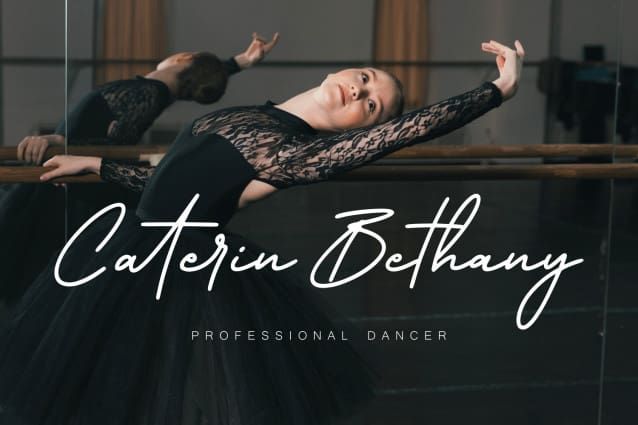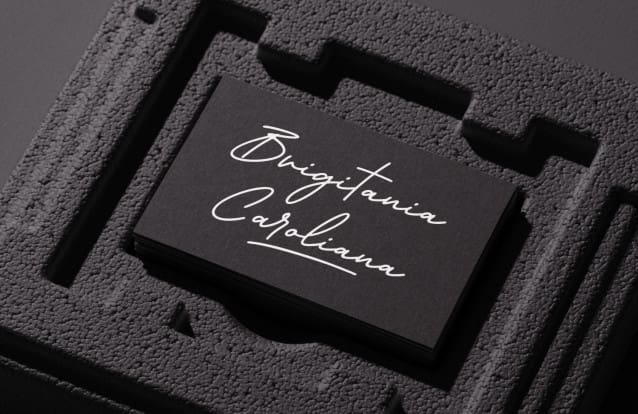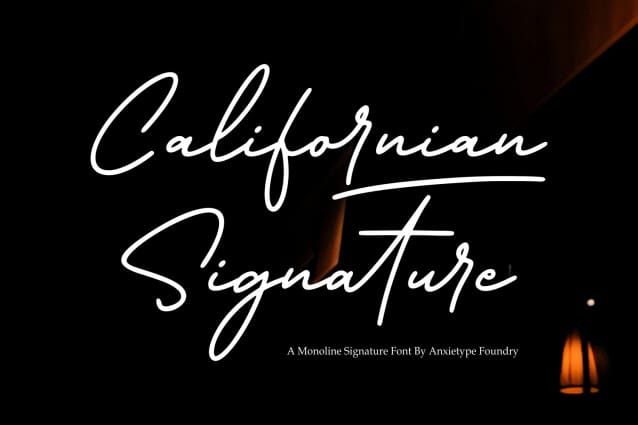
Californian Signature Font
Californian Signature Font, a pristine monoline signature font that personifies luxury and sophistication. With its flawless design and smooth contours, this font exudes a modern flair perfect for logo creations, branding exertions, and the aesthetics of packaging products. It showcases the refined sophistication needed for business endeavors, yet retains a delicate allure apt for creating ethereal wedding invitations or delicate crafting projects. Californian Signature is also ideal for company insignias or embellishing simple backgrounds with its sleek composition. Steeped in class and versatile functionality, Californian Signature is your go-to font for ultimate stylistic expression.